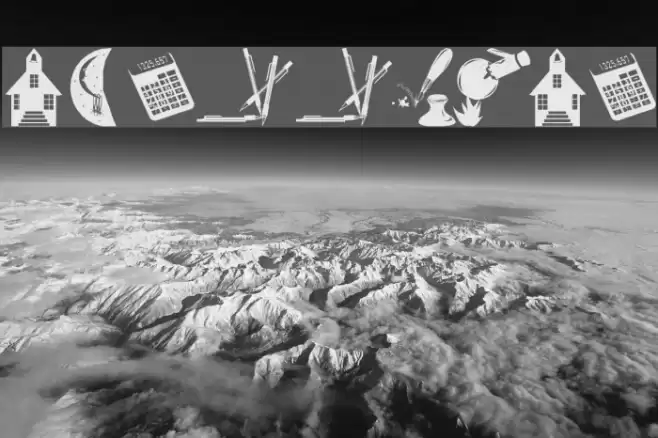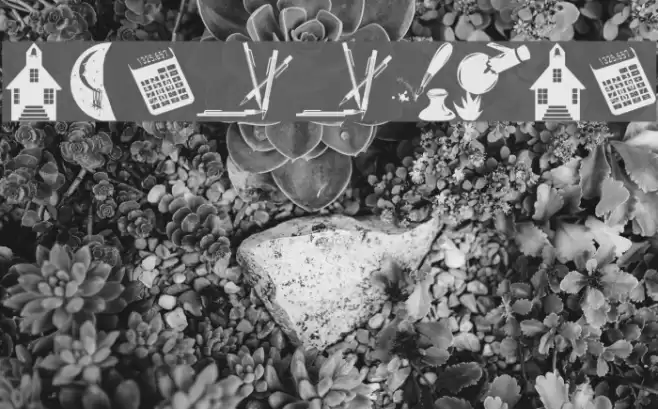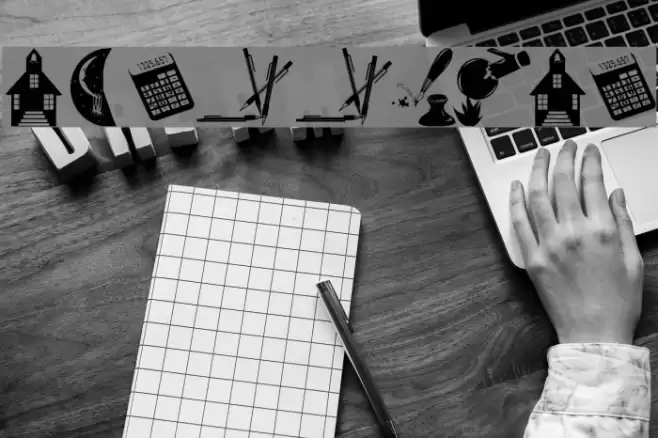
Schoolish Font
Schoolish Description
A playful, illustrative dingbat font featuring various school-related icons such as books, buses, globes, calculators, and stationery, rendered in a bold, high-contrast black and white style.
A school-themed icon font with bold, detailed illustrations from Uncategorized fonts.
- Proposed Projects: Educational posters, classroom decor, school event flyers, children's books, learning materials.
- Overall Style: Playful, Educational, Decorative
- Use Case: Icons, Decorative elements, Themed graphics